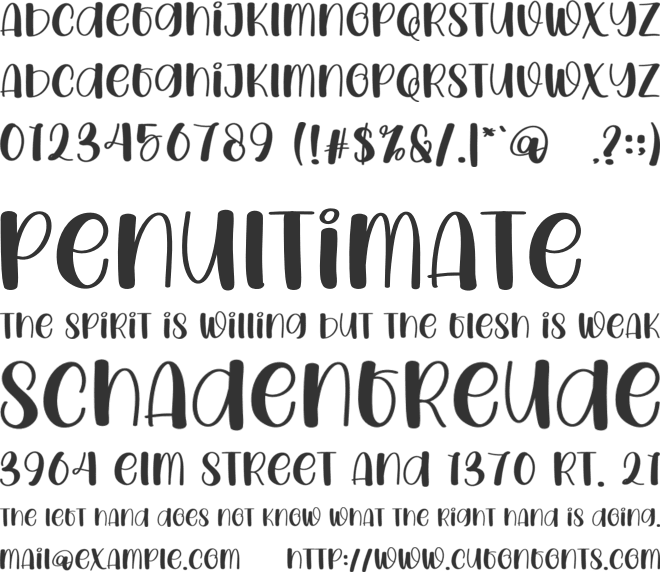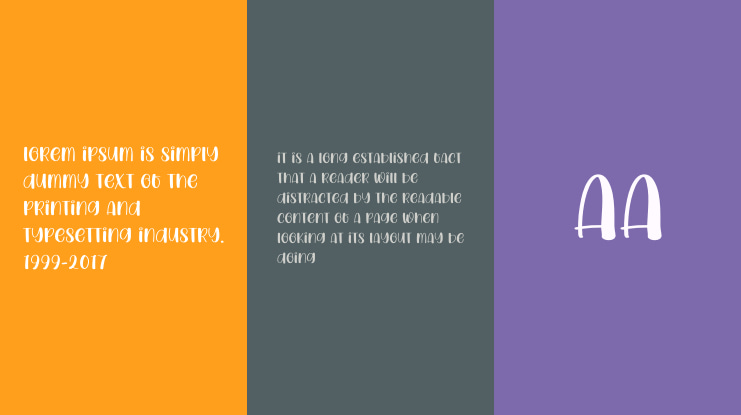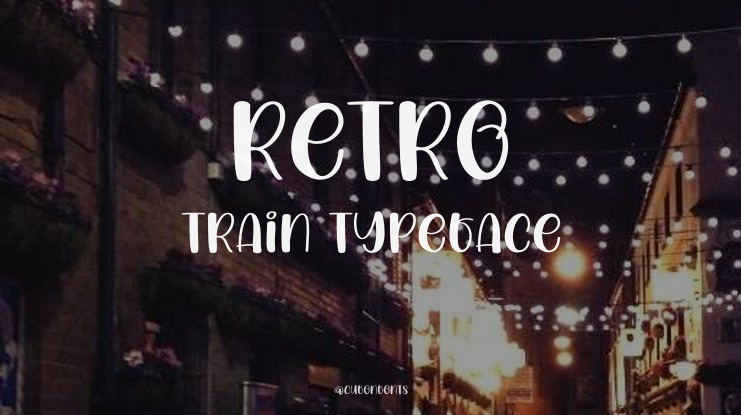
Retro Train Font
DETAILSThis font retains a classy calligraphic influence while feeling contemporary and fresh. This versatility will attract a wide range of creative ideas, from letterheads and titles to stationery._________________________________________________________________________WARNING!!!By installing or using this font, you agree to the Product Use Agreement:- This font has the FULL VERSION and is for PERSONAL USE ONLY. NO COMMERCIAL USE!- If you need a CUSTOM PERMISSION or COMPANY LICENSE, please visit: https://creativewritting.com/product/61beautiful-lenttering/or click the link below: www.creativewritting.com_________________________________________________________________________Attention :It is forbidden to use this font for commercial purposes or for profit without the permission of the author / admin, without knowing that using this font without the permission of www.creativewritting.com will be penalized 5x the specified price.